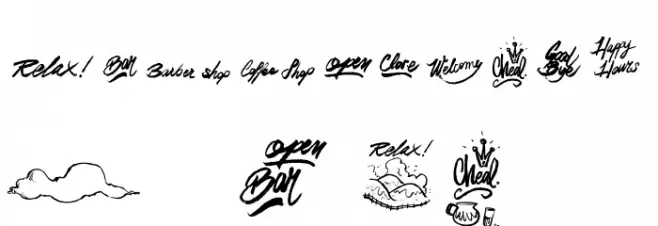
Dreambats_PersonalUseOnly Font
Dreambats_PersonalUseOnly Description
This is a decorative font featuring a series of whimsical and playful illustrations. Each character is represented by a unique drawing, ranging from landscapes and objects to stylized text. The style is hand-drawn, with a casual and artistic flair, making it ideal for creative projects. The illustrations are detailed and varied, capturing a sense of fun and imagination. The font includes a mix of scenes and objects, such as beaches, trees, and signs, as well as expressive handwritten words. This font is perfect for adding a touch of creativity and uniqueness to any design.
A decorative font with whimsical, hand-drawn illustrations and playful text from Dingbats fonts.
- Proposed Projects: Ideal for greeting cards, children's books, creative posters, and artistic branding.
- Use Case: Logos, Posters, Artistic Projects